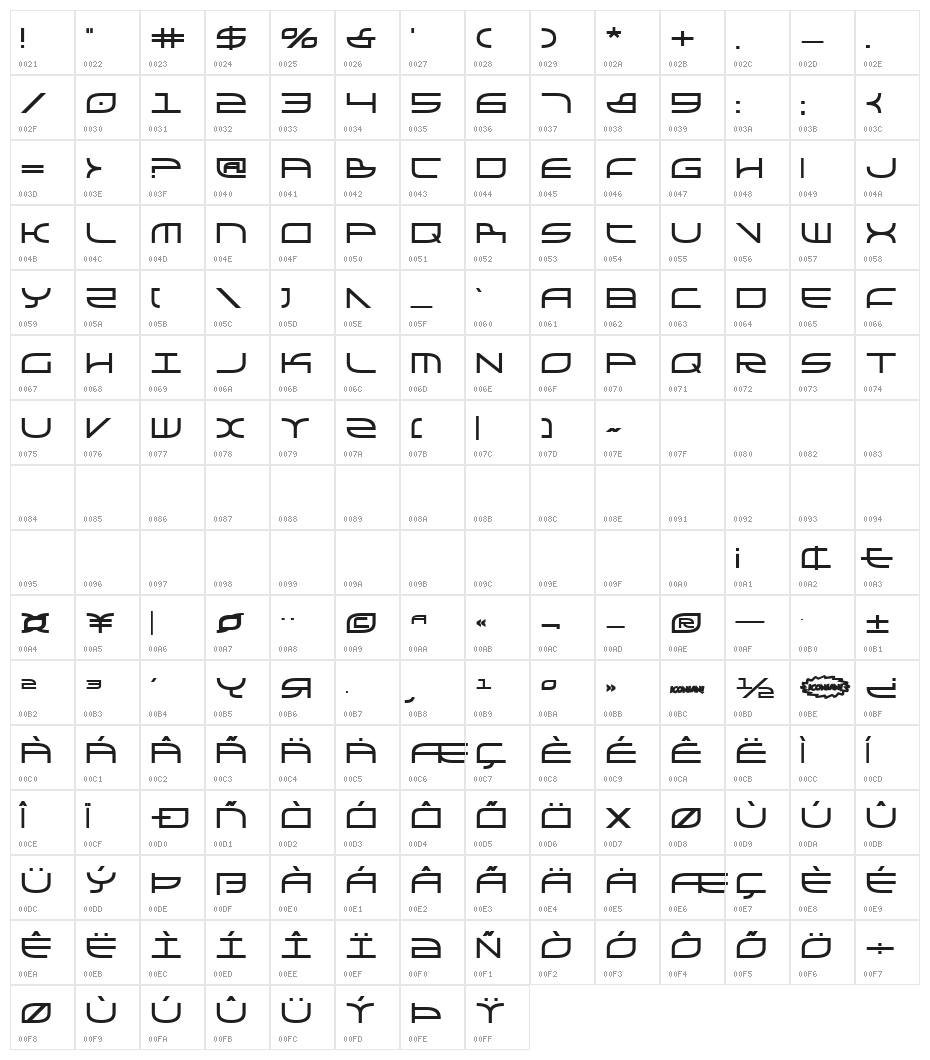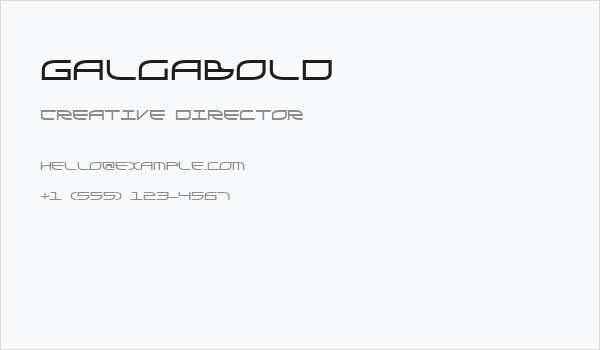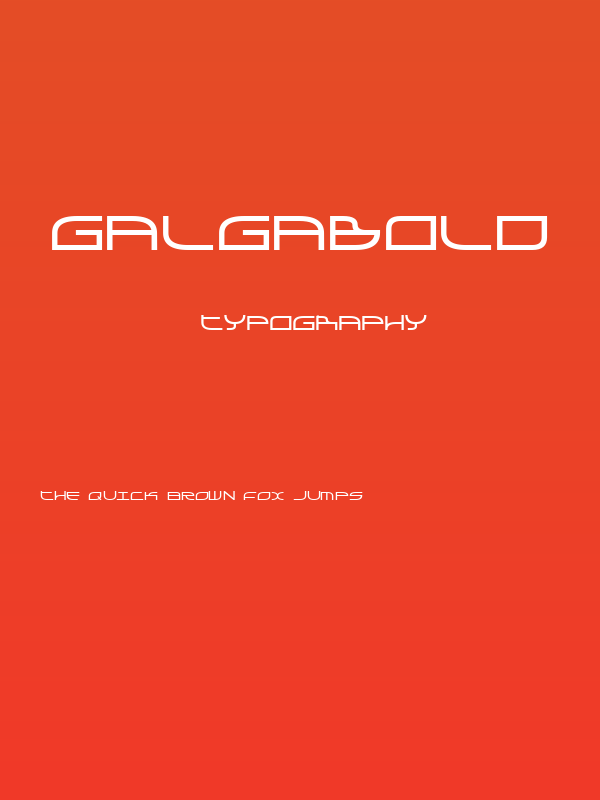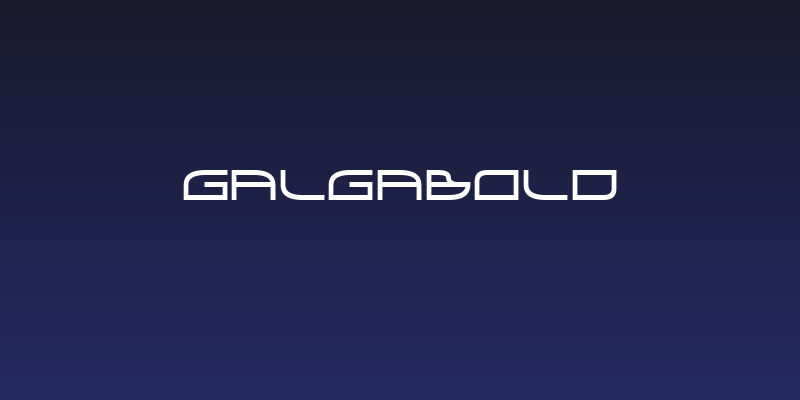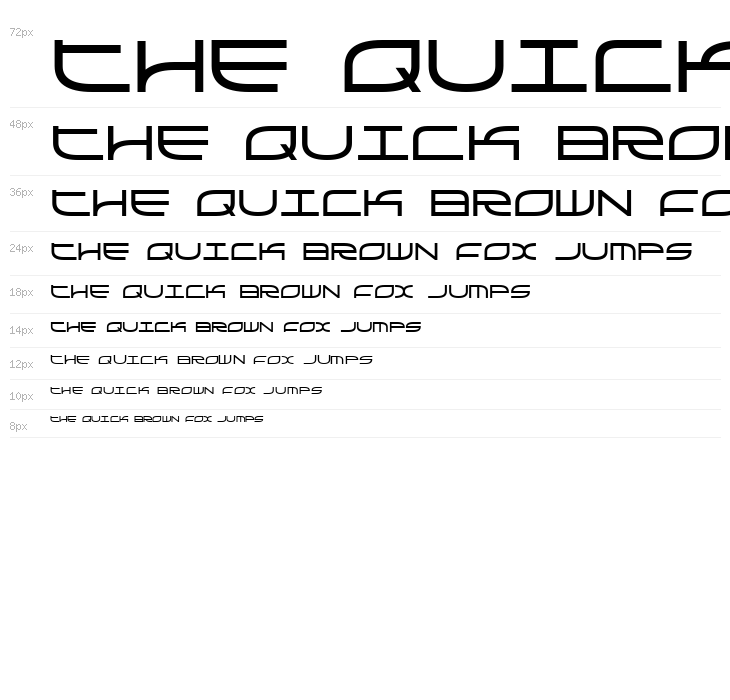
GalgaBold Font
GalgaBold Description
This font features a futuristic and geometric design, characterized by its clean lines and unique angular shapes. The uppercase letters exhibit a consistent height with a modern twist, incorporating subtle curves and sharp edges that give it a distinctive look. The lowercase letters maintain a similar aesthetic, ensuring uniformity across the typeface. Numbers are designed with the same geometric precision, making them easily readable while retaining the font's overall style. Special characters are crafted to complement the alphanumeric characters, enhancing the font's versatility. This typeface is ideal for projects that require a modern and tech-inspired appearance, offering a bold yet sophisticated visual impact.
| Proposed Projects | Ideal for technology branding, sci-fi movie posters, video game interfaces, and modern web design. |